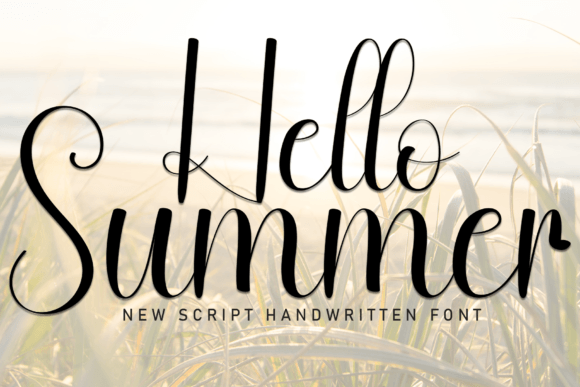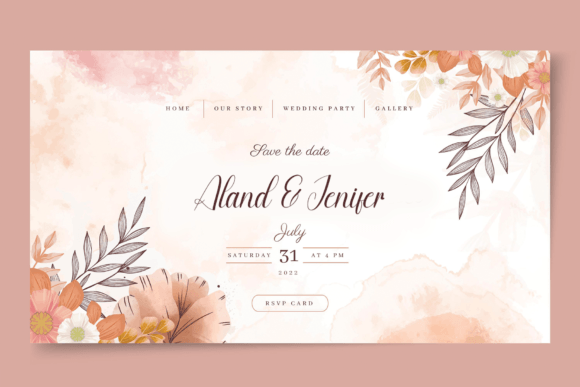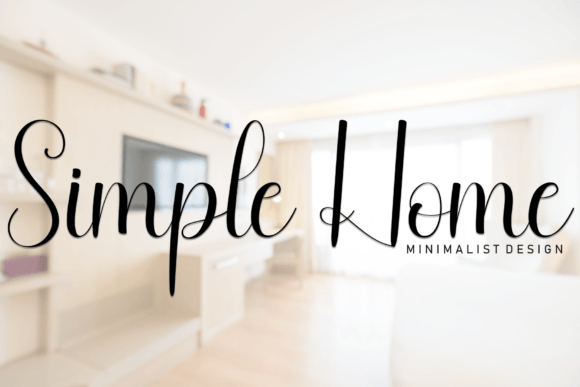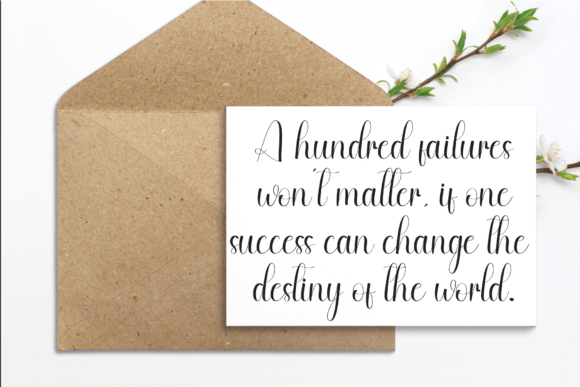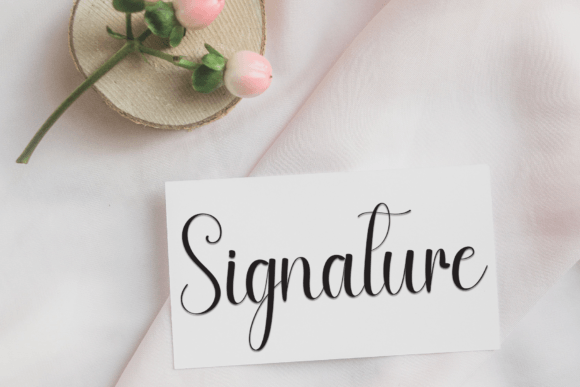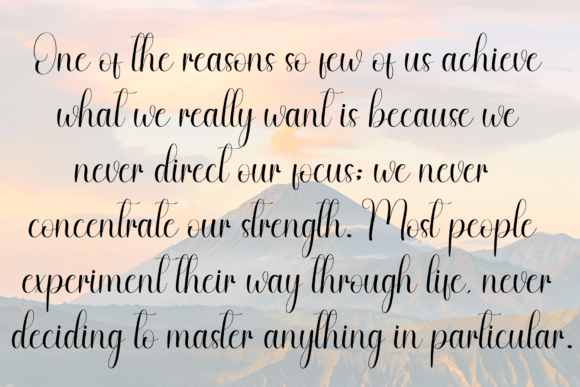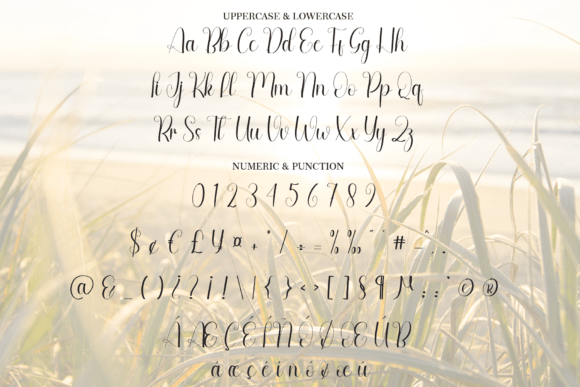
Summer Lovin’, Can’t Stay Away
As the sun starts shining brighter and the days grow longer, many of us find ourselves craving a fresh start. For designers, this time of year is the perfect opportunity to refresh our creative palettes and experiment with new fonts. And what’s more fitting than a font that embodies the carefree spirit of summer?
Enter Hello Summer Font, a sweet and friendly handwritten display font that’s sure to bring a smile to your face. This cute and fun font is perfect for adding a playful touch to your designs, whether you’re crafting wedding invitations, creating greeting cards, or working on any other project that needs a dash of whimsy. With its cheerful vibe, Hello Summer Font is an invaluable addition to any designer’s toolkit, offering endless possibilities for creative expression.
Hello Summer Font Key Features
- Font Family: Hello Summer Font is a unique, hand-drawn font designed to evoke a carefree summer feeling.
- Unique Characteristics: Hello Summer Font features playful, handwritten letterforms with subtle imperfections and texture, giving it a distinctive, handcrafted look.
Hello Summer Font Review
As a designer, I was excited to dive into the “Hello Summer Font” and see what it had to offer. Here are my thoughts:
- Casual and relaxed vibe: The font’s friendly and approachable nature makes it perfect for summer-themed projects or any project that needs a laid-back feel.
- Legibility: The font is well-designed for body text and is easy to read, even at smaller sizes.
- Flexibility: The font comes in a range of weights and styles, making it versatile for different design needs.
- Lack of sophistication: The font’s casual nature may not be suitable for more formal or professional projects.
- Not ideal for small text: While the font is legible, it may not be the best choice for small text sizes due to its rounded edges.
- No extensive character set: The font’s character set is limited, which may not be suitable for projects that require a wide range of special characters.
Overall, I think the “Hello Summer Font” is a great choice for casual, summer-themed projects or projects that need a relaxed feel. However, it may not be the best fit for more formal or complex projects.
For best results, use “Hello Summer Font” for designs that evoke a sense of fun, playfulness, and summer vibes.
- Social media posts and graphics
- Summer-themed party invitations and decorations
- Travel and vacation marketing materials
- Summer-themed merchandise and packaging
Alternatives to “Hello Summer Font”
Great Vibes is a beautiful script font perfect for adding a touch of elegance and sophistication to your designs. It’s ideal for wedding invitations, greeting cards, and other romantic-themed projects. Great Vibes has a more refined and delicate look compared to Hello Summer Font, which makes it suitable for more formal occasions.
Carolyna Pro is a modern script font that’s perfect for creating eye-catching headings and titles. It’s great for fashion, beauty, and lifestyle brands, as well as for packaging and advertising designs. Compared to Hello Summer Font, Carolyna Pro has a more contemporary and edgy look, making it suitable for trendy and fashion-forward designs.